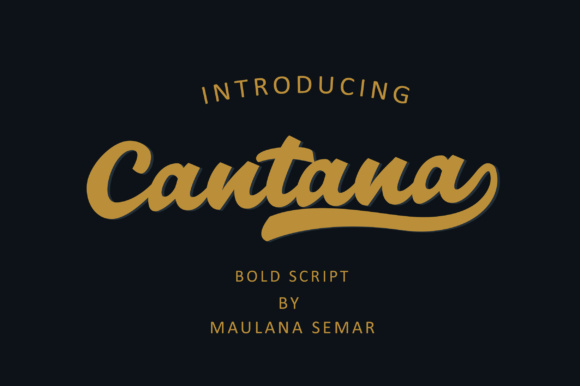
Unleash the beauty of your designs with Cantana Script Font. An elegant script that captivates with its graceful curves and sweeping lines. A font that dances across the page, adding a touch of sophistication to any project. Crafted by the talented hands of MechaStudio, Cantana Script exudes class and allure. It's a font that demands attention, making it perfect for personal branding, logos, invitations, and more.
Visualize your brand adorned with Cantana Script's exquisite characters, leaving a lasting impression on your audience. The text is meticulously designed to ensure legibility and impact, ensuring your message shines through. Dive into the world of Cantana Script and let your creativity take center stage. Because with Cantana Script, your designs will not only be beautiful - they'll be unforgettable.